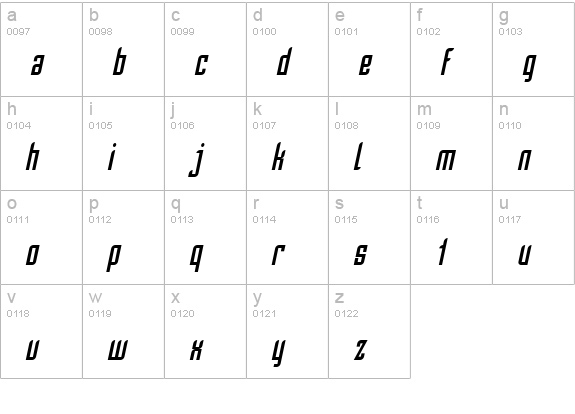
SF Piezolectric Condensed Oblique Font Details
SF Piezolectric Condensed Oblique is a distinctive, condensed-width, italic variant in the SF typeface family \xE2\x80\x94 well suited to design and typography projects.
SF Piezolectric Condensed Oblique is a stunning display font that effortlessly combines elegance with a touch of edginess. Its unique condensed oblique design gives it a distinct and captivating appearance that will make any project stand out. This font is perfect for those seeking a modern and dynamic look in their designs. With its clean lines and sharp angles, SF Piezolectric Condensed Oblique exudes a sense of sophistication and professionalism. It is ideal for logos, headlines, titles, posters, and any other creative endeavors that require a bold statement. One of the most appealing aspects of SF Piezolectric Condensed Oblique is that it is freely available to download at FontsMarket.com. This means that you can easily access this font and utilize its striking aesthetic without any hassle or cost. Whether you are a professional designer or a hobbyist, this font allows you to experiment and explore your creativity without any limitations. Adding SF Piezolectric Condensed Oblique to your font collection will give you the freedom to create visually captivating and impactful designs. Its versatility and eye-catching appeal make it a must-have for anyone looking to make a lasting impression. So why wait? Visit FontsMarket.com today and download SF Piezolectric Condensed Oblique for free to elevate your designs to a whole new level.